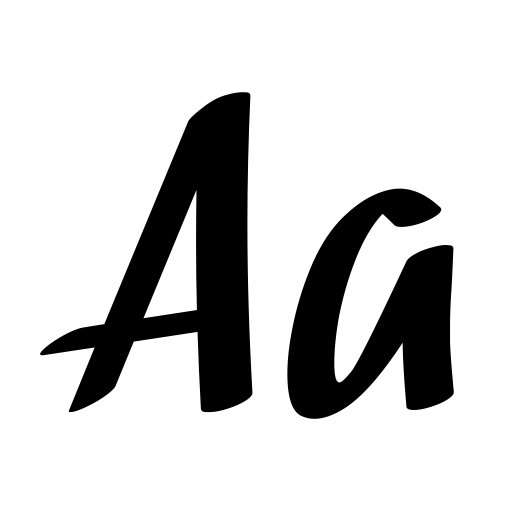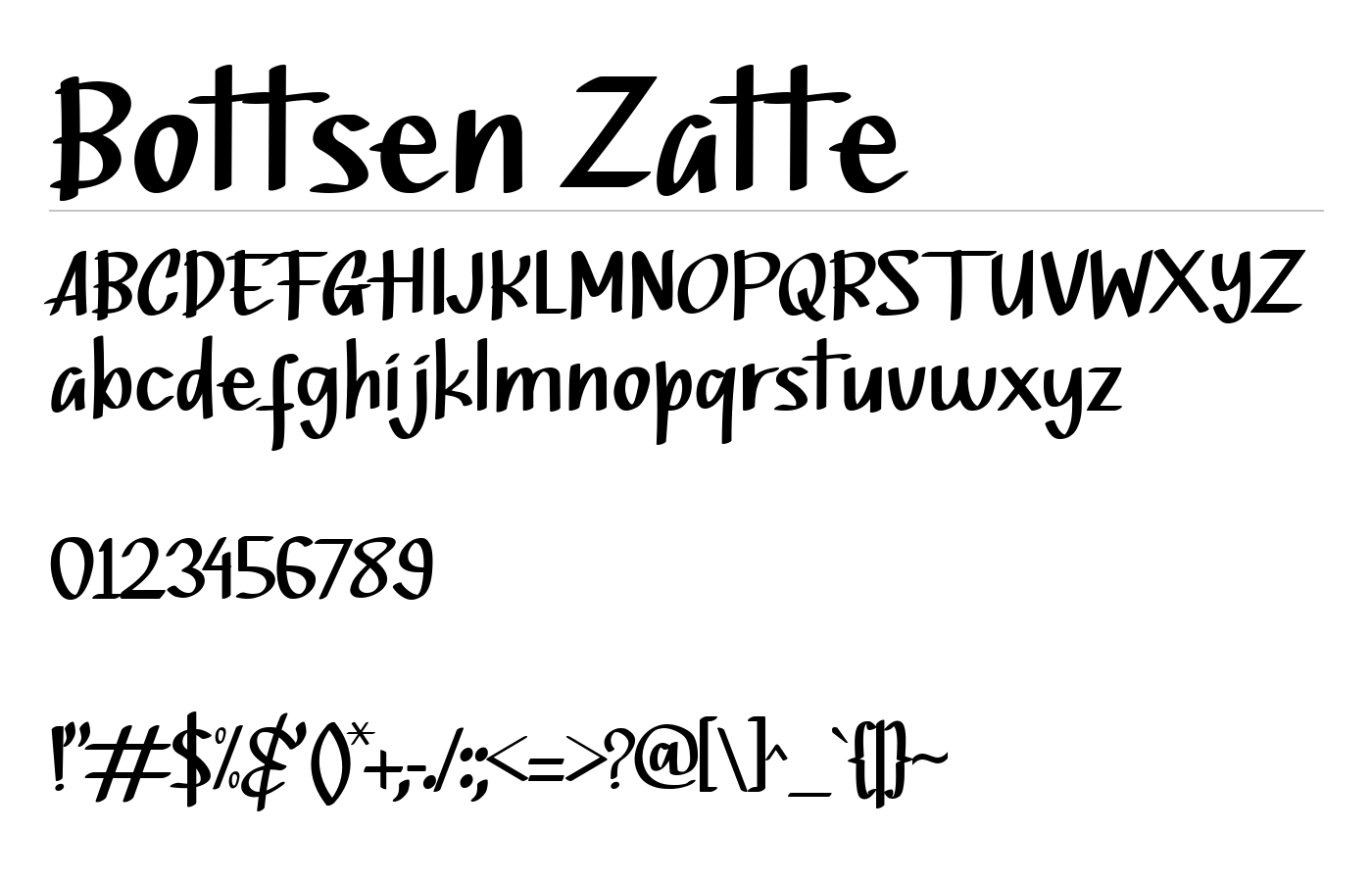
Bottsen Zatte is a playful and quirky handwritten font with a casual, organic feel. Its irregular strokes and slightly uneven letterforms give it a friendly and approachable personality, making it perfect for creative projects, children’s content, and informal branding that seeks to convey warmth and individuality. This font works well in headlines, logos, and packaging where a unique, hand-crafted touch is desired.
Bottsen Zatte Font